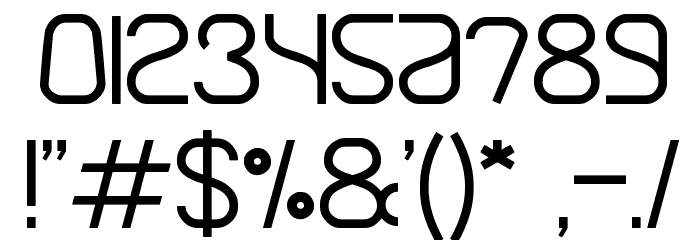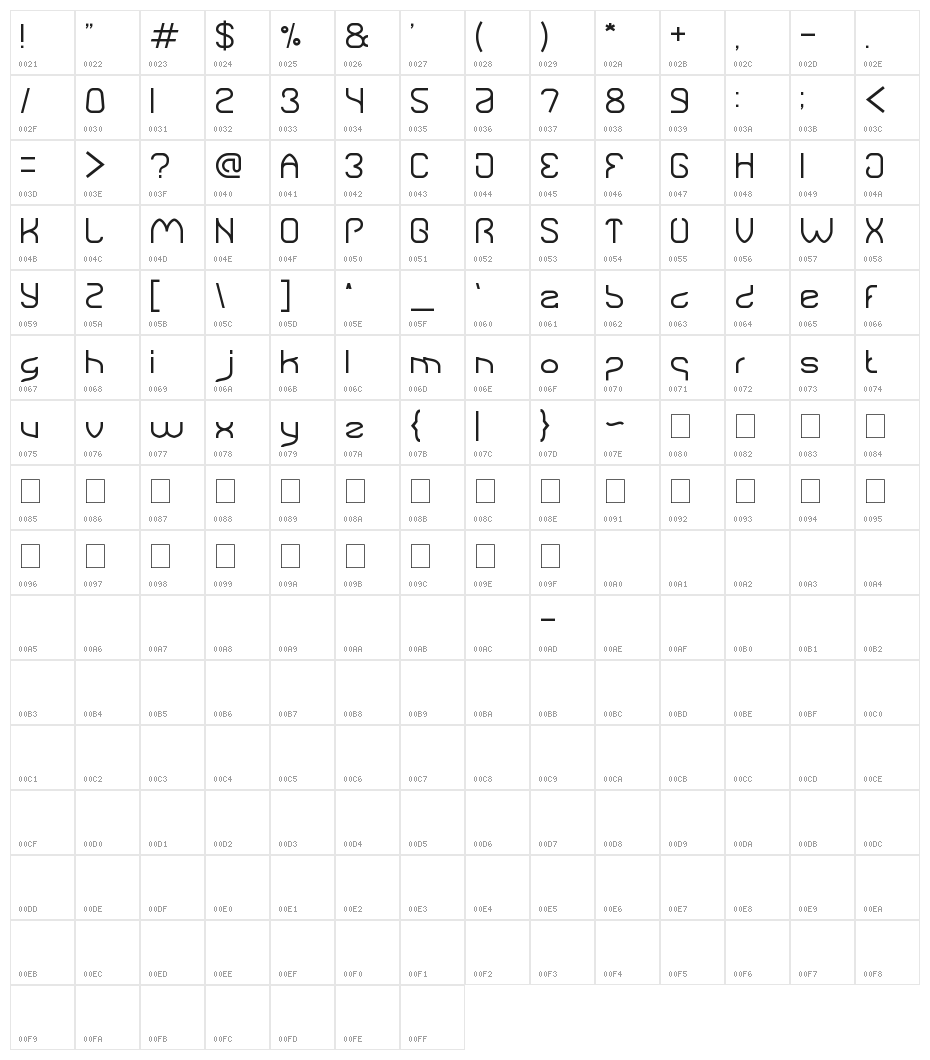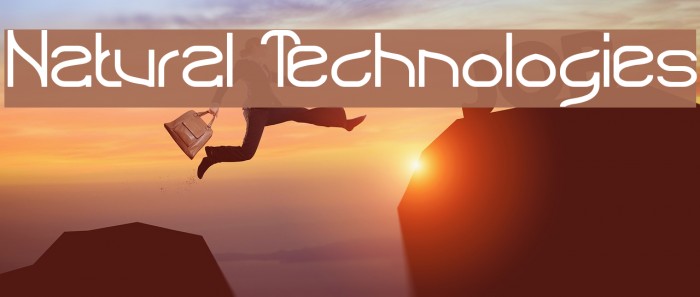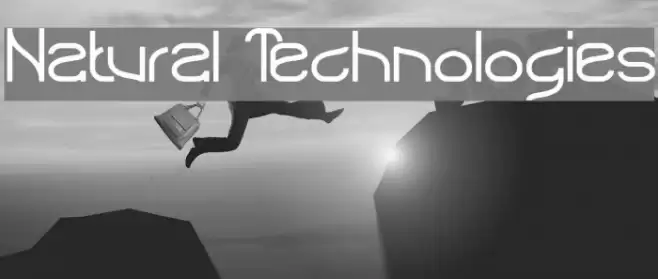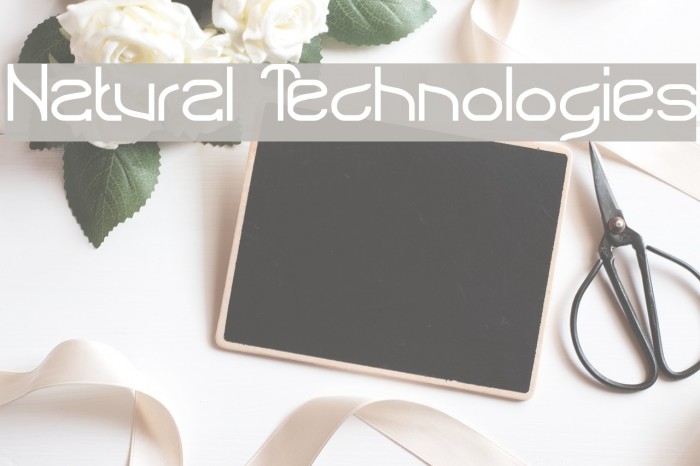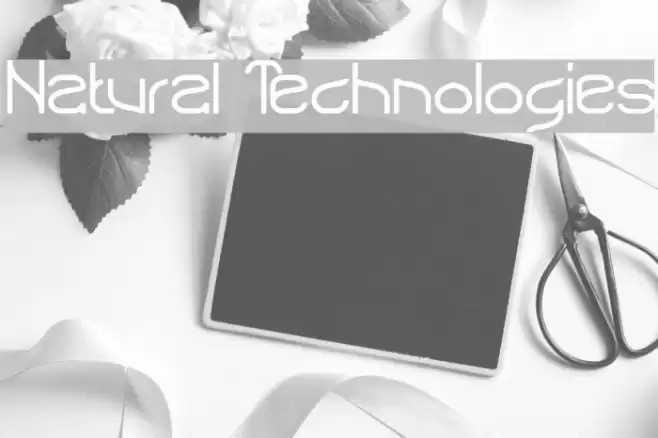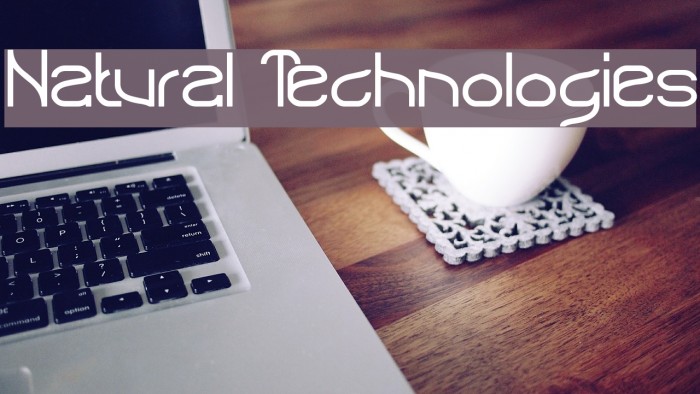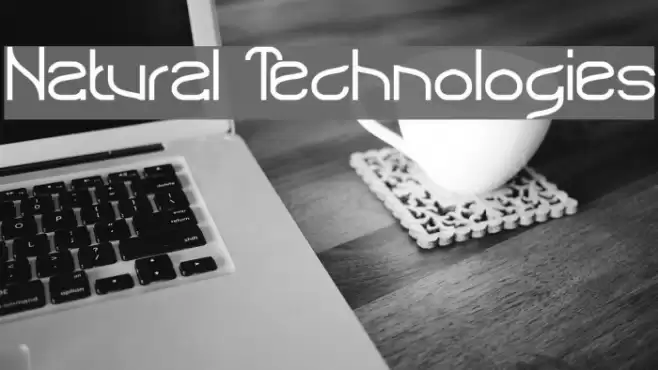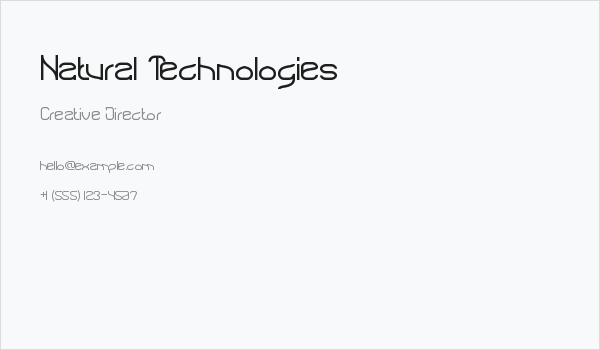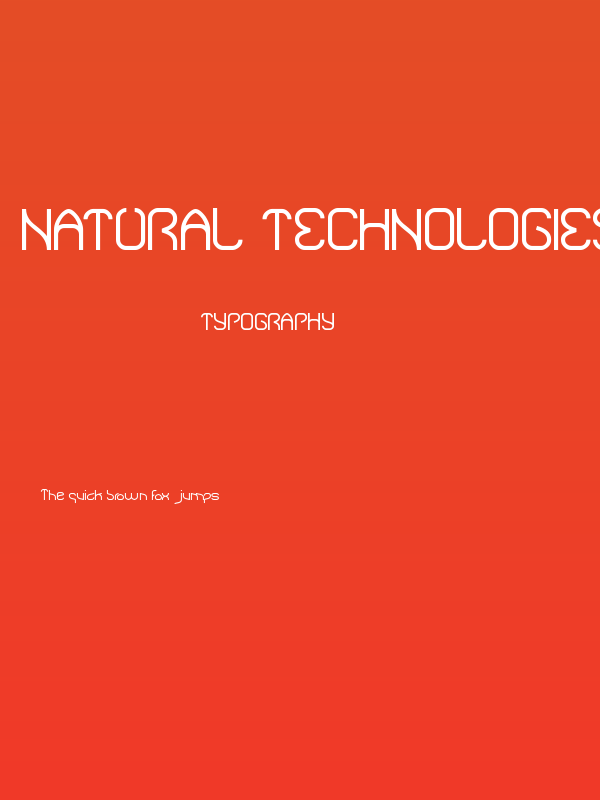
Natural Technologies Font
Natural Technologies Description
This font features a futuristic and geometric design, characterized by its clean lines and rounded edges. The uppercase letters exhibit a unique blend of angular and curved elements, creating a modern and technological aesthetic. The lowercase letters maintain a consistent style, with a slightly more fluid form that complements the uppercase set. Numbers and special characters follow the same design principles, ensuring uniformity across all glyphs. The overall appearance is sleek and minimalistic, making it suitable for contemporary design projects.
| Use Case | Logos, Headlines, Branding |
| Proposed Projects | Ideal for technology branding, modern website headers, and innovative product packaging. |